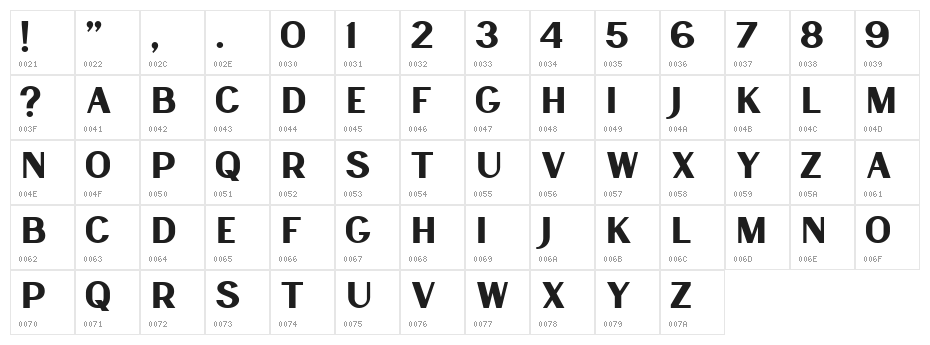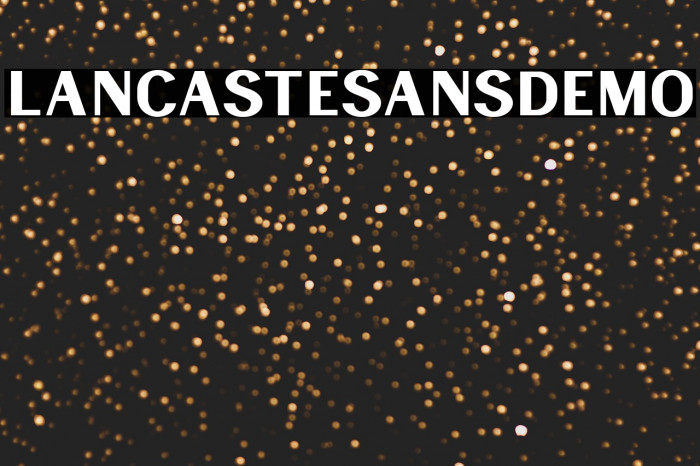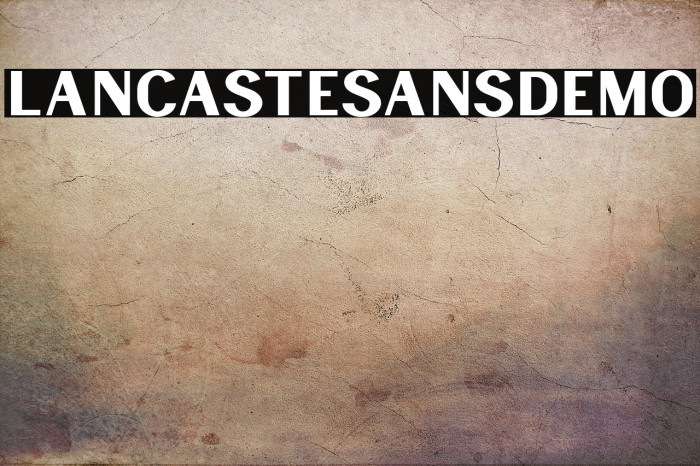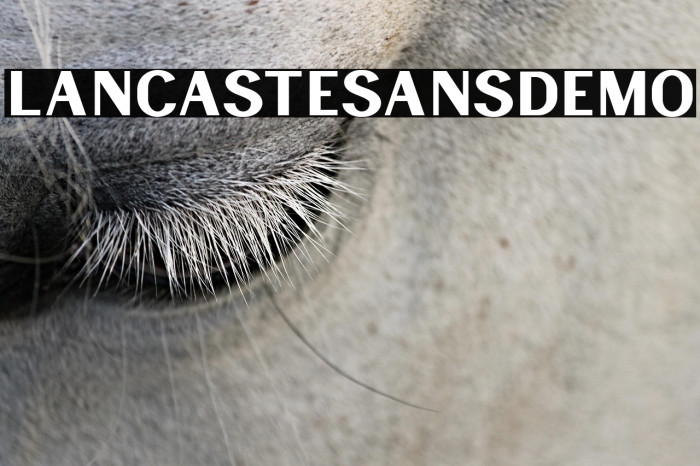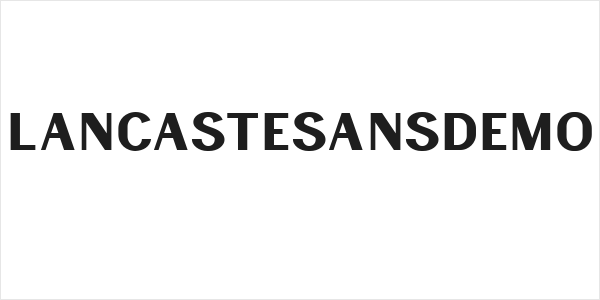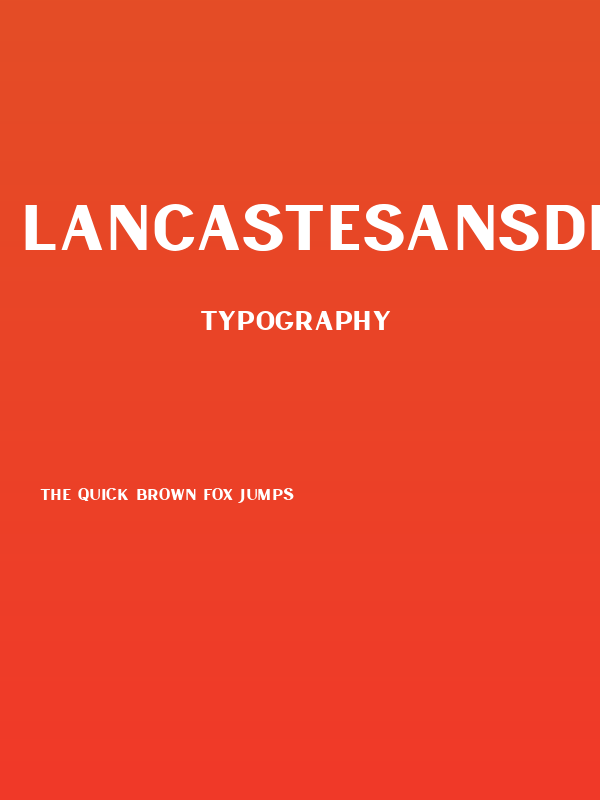
LancasteSansDemo Font
LancasteSansDemo Description
This font features a clean and modern sans-serif design, characterized by its bold and uniform stroke weight. The characters are well-defined with a geometric structure, providing a sense of stability and clarity. The uppercase letters are tall and commanding, while the lowercase letters maintain a consistent height, ensuring readability. The numerals are distinct and balanced, complementing the overall aesthetic. Special characters are straightforward and integrate seamlessly with the rest of the typeface. This font's simplicity and boldness make it versatile for various design applications.